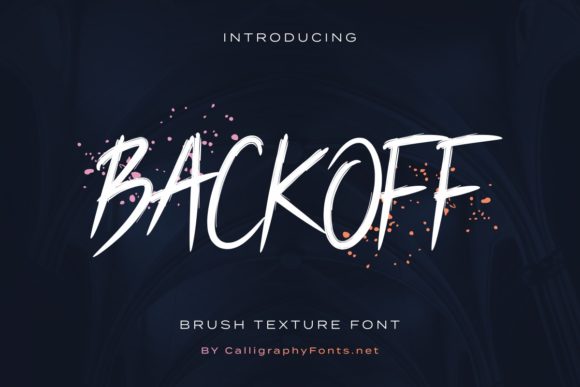
The Ultimate Display Font: Unleashing the Power of Backoff
I’ll never forget the time I was working on a project for a client who wanted a bold, eye-catching font to make their brand stand out. I spent hours scouring the internet for the perfect font, but nothing seemed quite right. That was until I stumbled upon Backoff, a spectacular display font that instantly elevated my design to the next level. In this article, I’ll share my experience with Backoff, its features, and how to make the most of this incredible font.
A Personal Review: What I Love About Backoff
Backoff is incredibly versatile, making it perfect for a wide range of designs. Here are some things I love about this font:
- ✨ Unique and eye-catching design: Backoff’s distinctive style makes it perfect for headlines, titles, and promotional materials.
- ✅ Highly legible: Despite its bold design, Backoff remains easy to read, even at smaller sizes.
- 💡 OpenType features: Backoff supports a range of OpenType features, including stylistic alternates and glyphs, giving you even more creative control.
While Backoff is an amazing font, there are a few things to keep in mind:
- 🤔 Limited use for body text: Backoff is best suited for display purposes, and may not be the best choice for longer blocks of text.
- ⚠️ Pay attention to kerning: As with any font, make sure to adjust the kerning to ensure optimal spacing and readability.
Backoff was designed with the goal of creating a bold and eye-catching font that’s both versatile and highly legible. The designer drew inspiration from a range of sources, including urban landscapes, modern art, and cutting-edge technology. The result is a font that’s both unique and highly effective.
Here are some frequently asked questions about Backoff:
| What type of designs is Backoff best suited for? | Backoff is perfect for display purposes, including headlines, titles, and promotional materials. |
| Can I use Backoff for body text? | While Backoff is highly legible, it’s best suited for display purposes and may not be the best choice for longer blocks of text. |
| Does Backoff support OpenType features? | Yes, Backoff supports a range of OpenType features, including stylistic alternates and glyphs. |